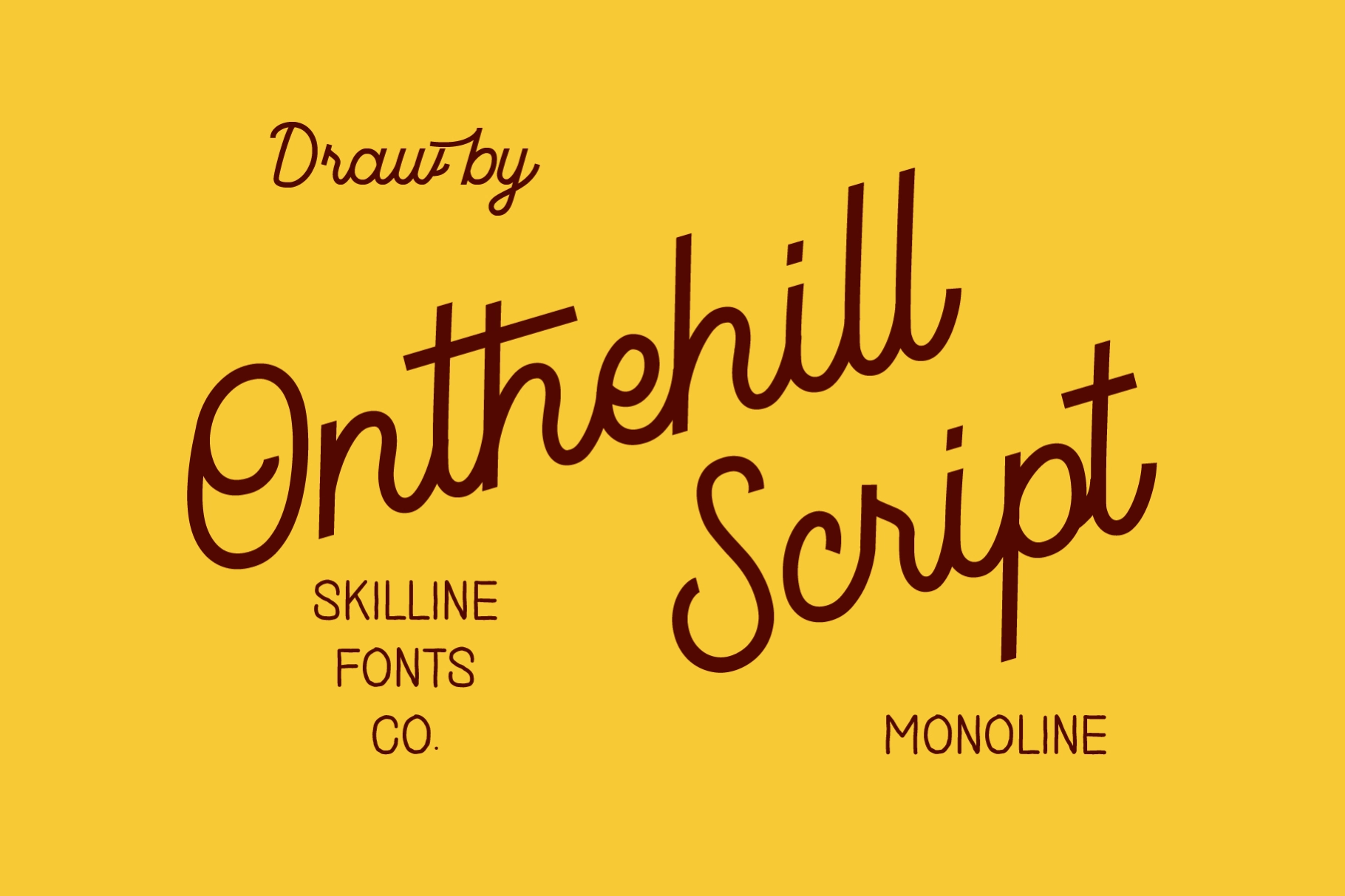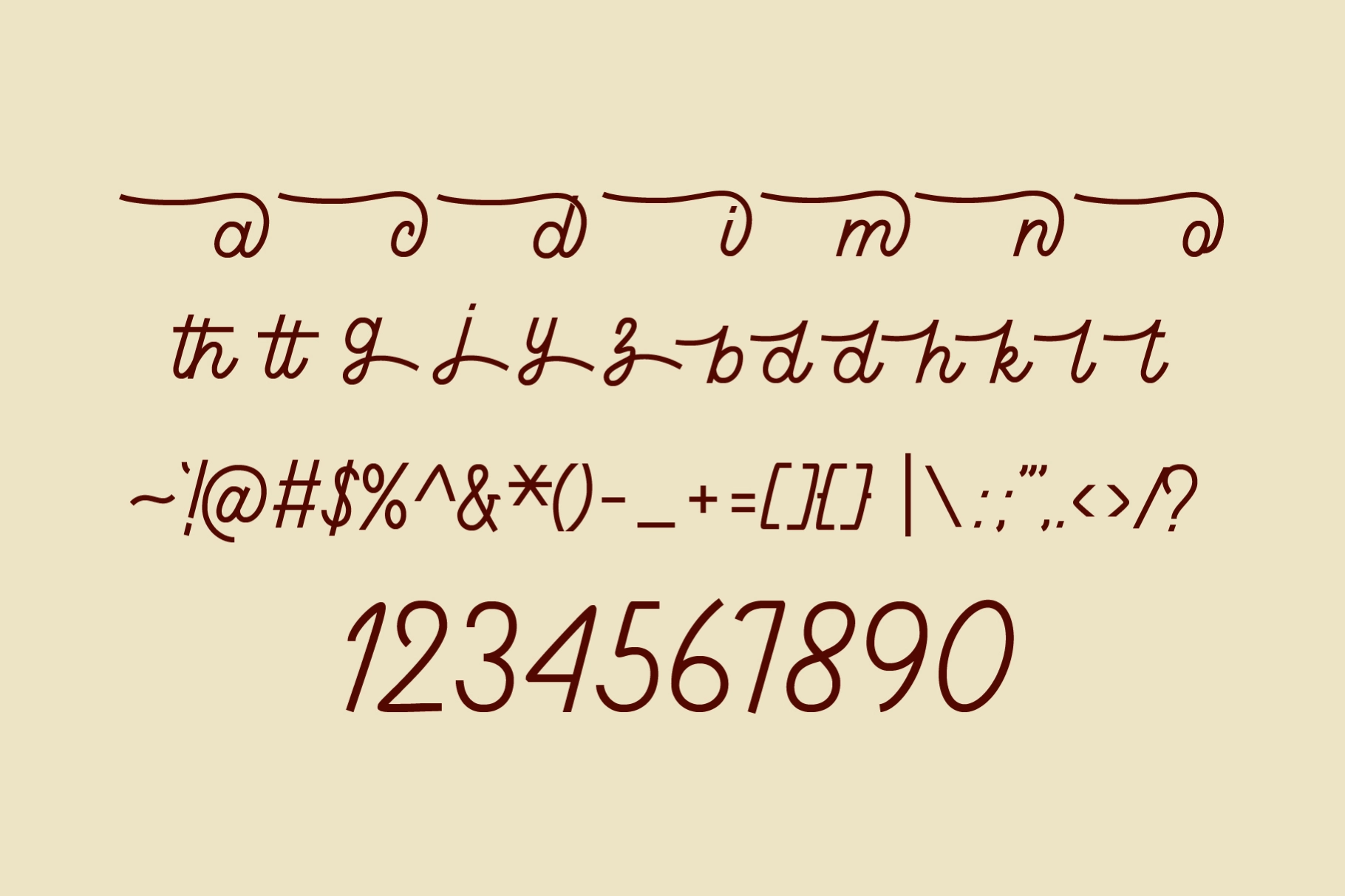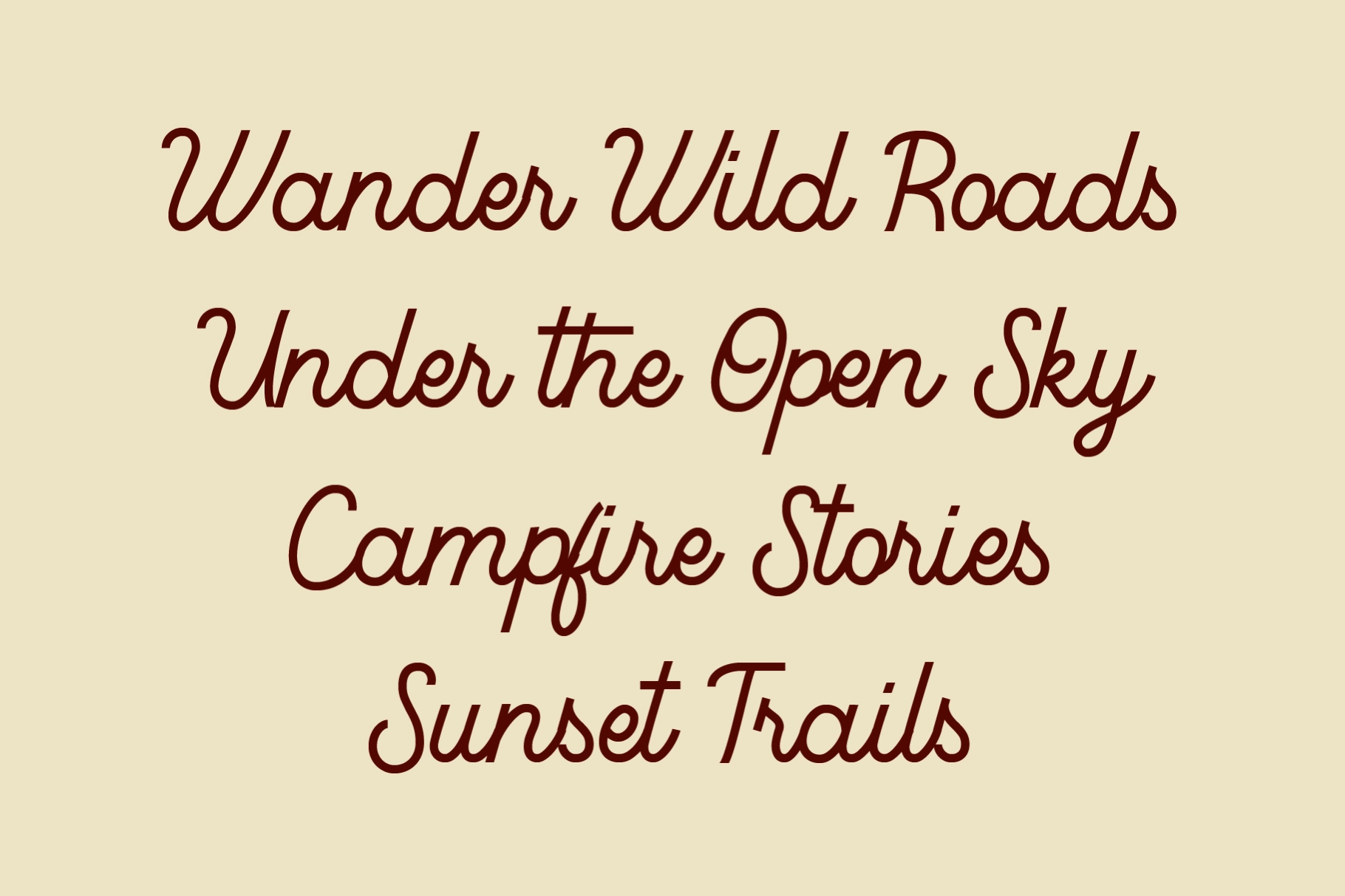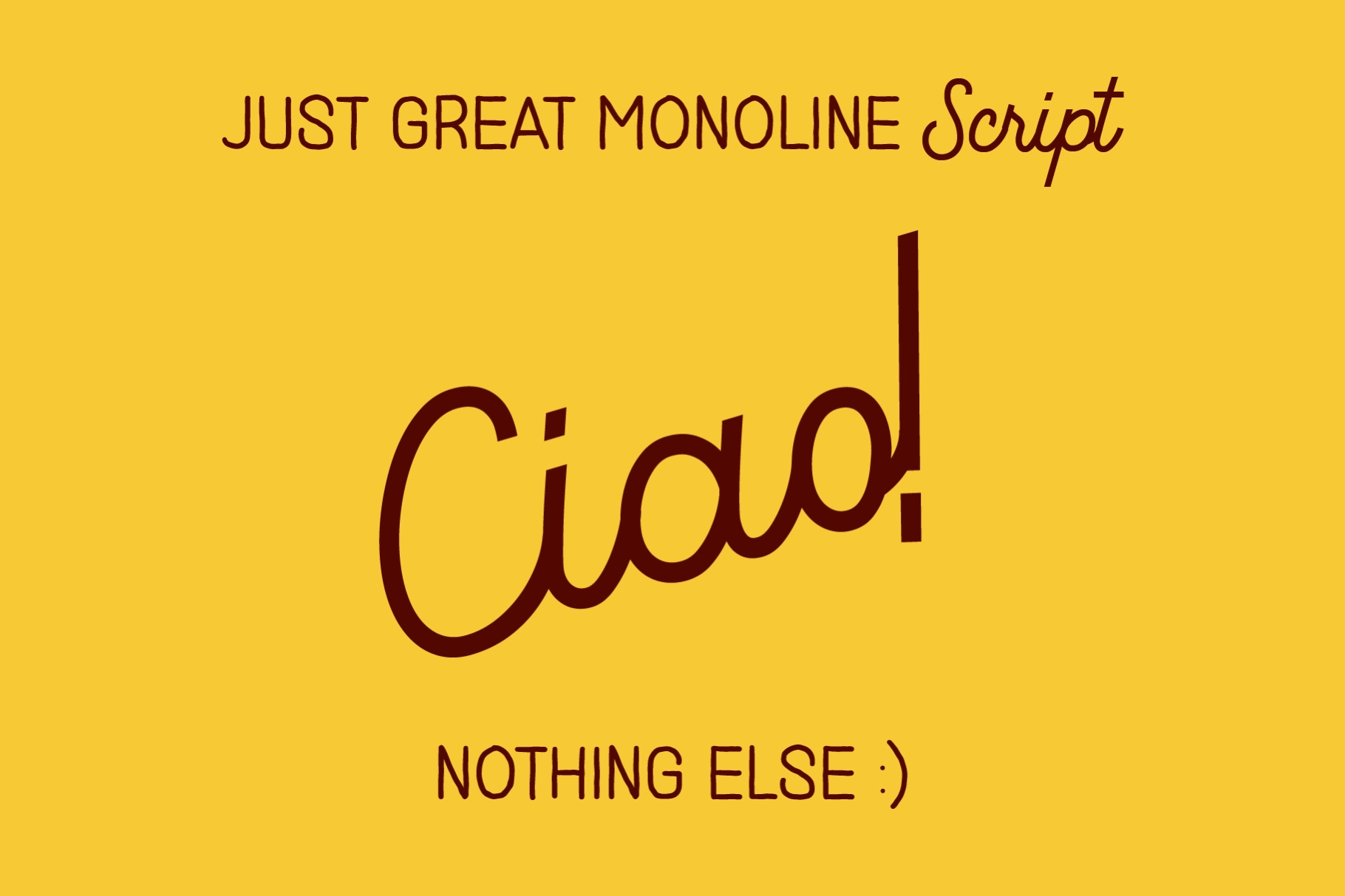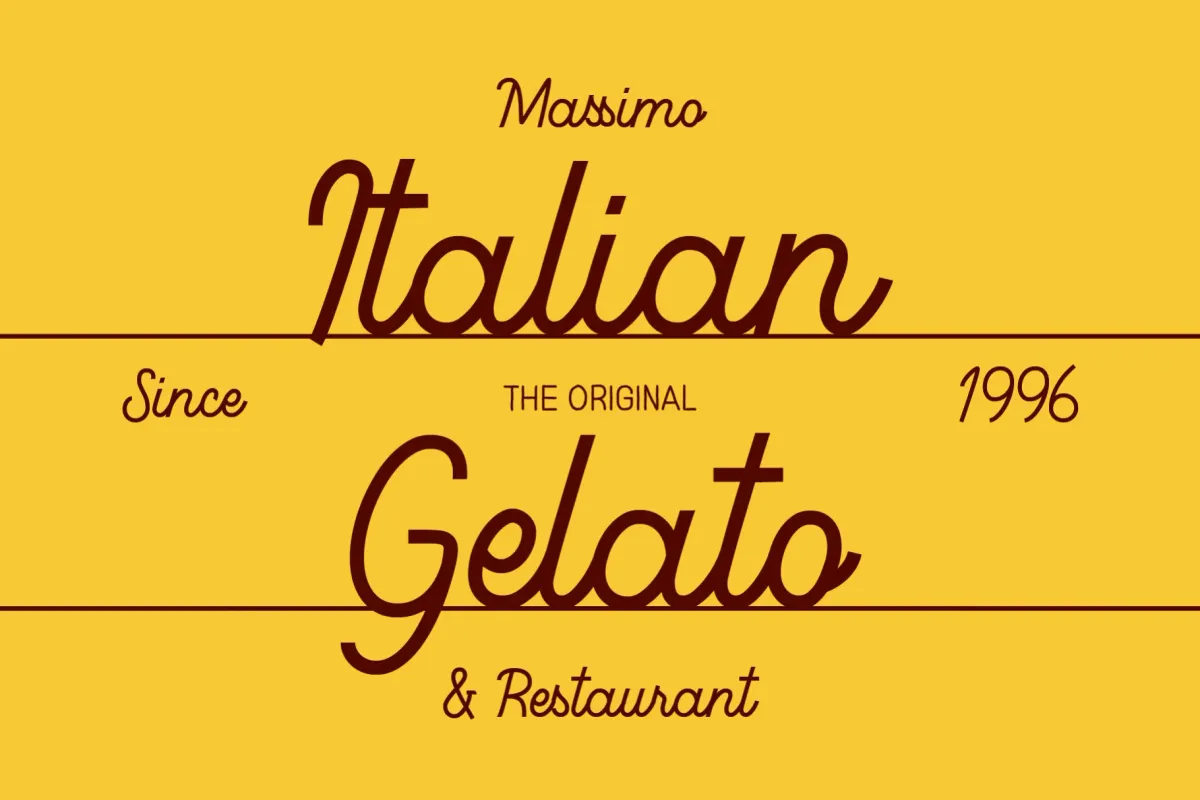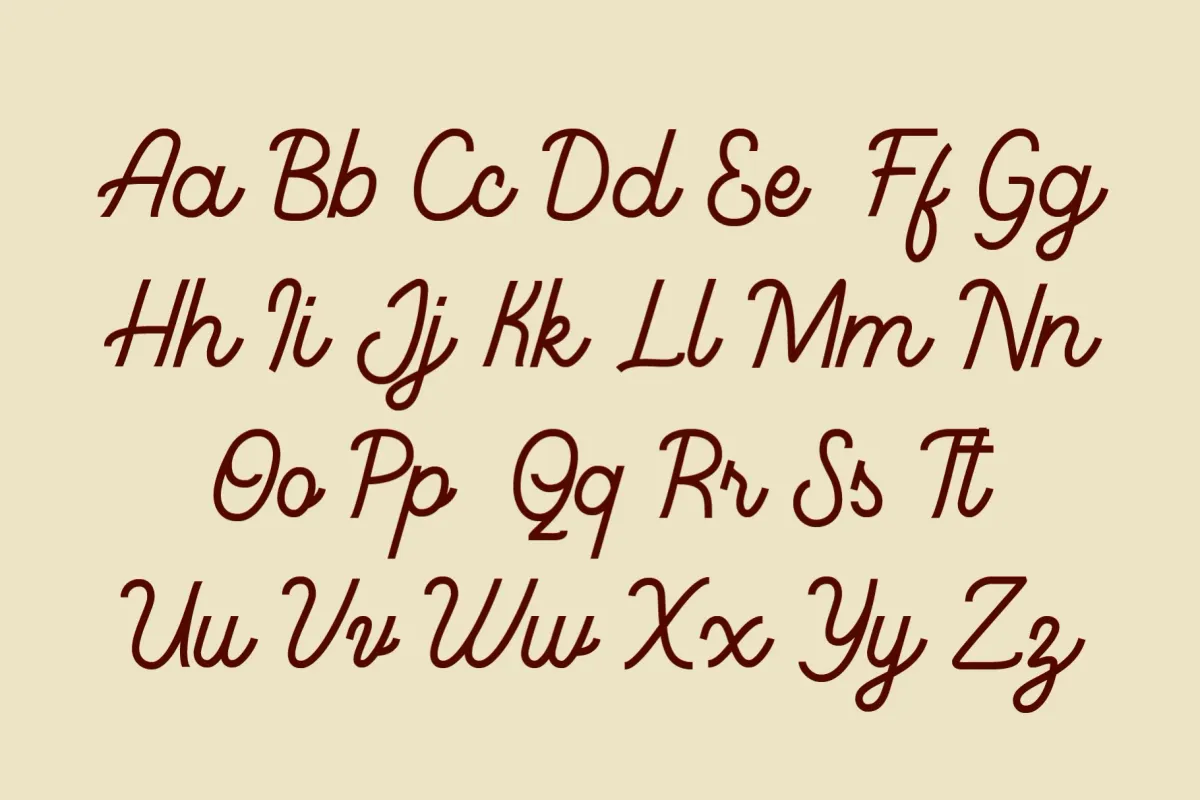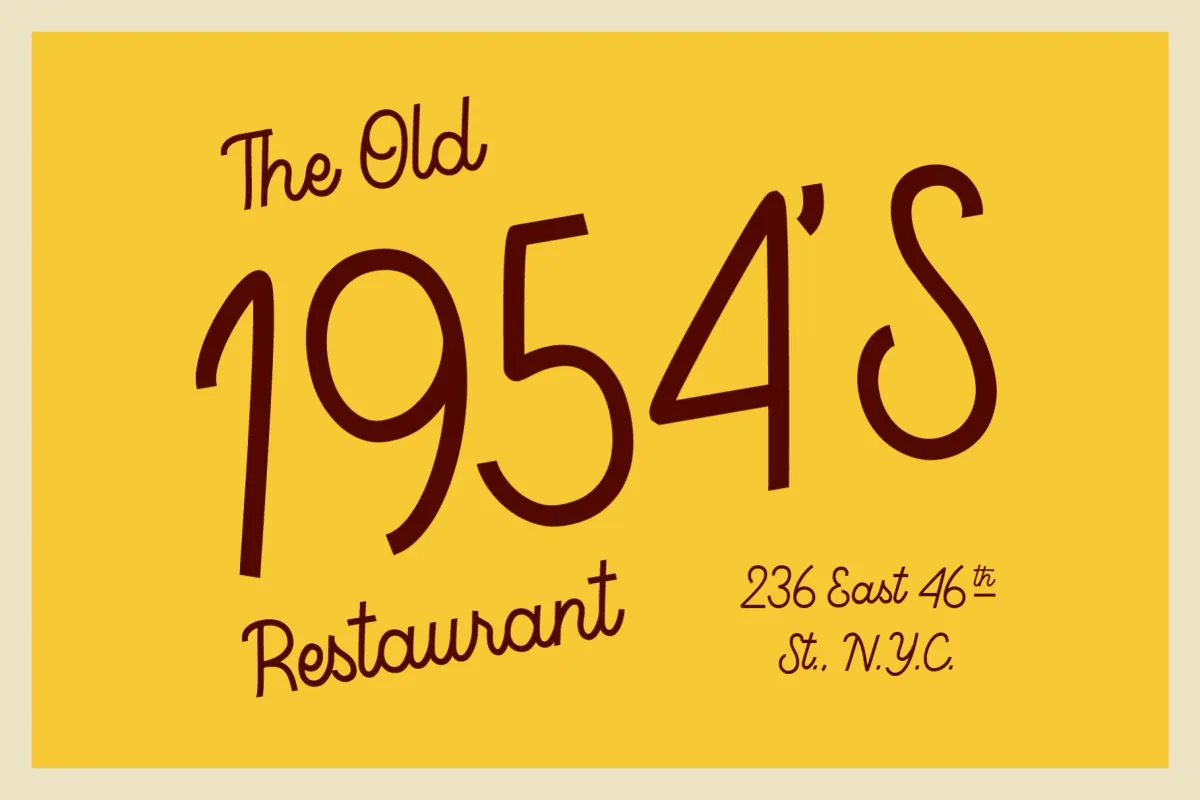
SFC Onthehill
Onthehill is a smooth monoline handwritten font that blends vintage charm with modern simplicity, inspired by mid-century lettering and classic sign painting. It captures a friendly, authentic feel with clean curves and consistent line weight, making it perfect for projects that need a personal yet polished touch. Designed for both clarity and character, it brings warmth and style to everything from branding to packaging, with each letter carefully drawn to achieve balance bold enough for headlines yet elegant enough for body text. Its timeless monoline structure ensures versatility across digital and print applications, delivering a refined handmade quality that feels approachable, creative, and effortlessly stylish.
Ideal Applications for Onthehill
- Retro branding and logo design with a personal touch
- Editorial layouts and packaging with monoline charm
- Apparel graphics and lifestyle merchandise
- Invitations, posters, and product labels
- Vintage-inspired social media and web graphics
- Standard Ligatures, Stylistic Alternates, Multilingual Support, Numerals & Punctuation